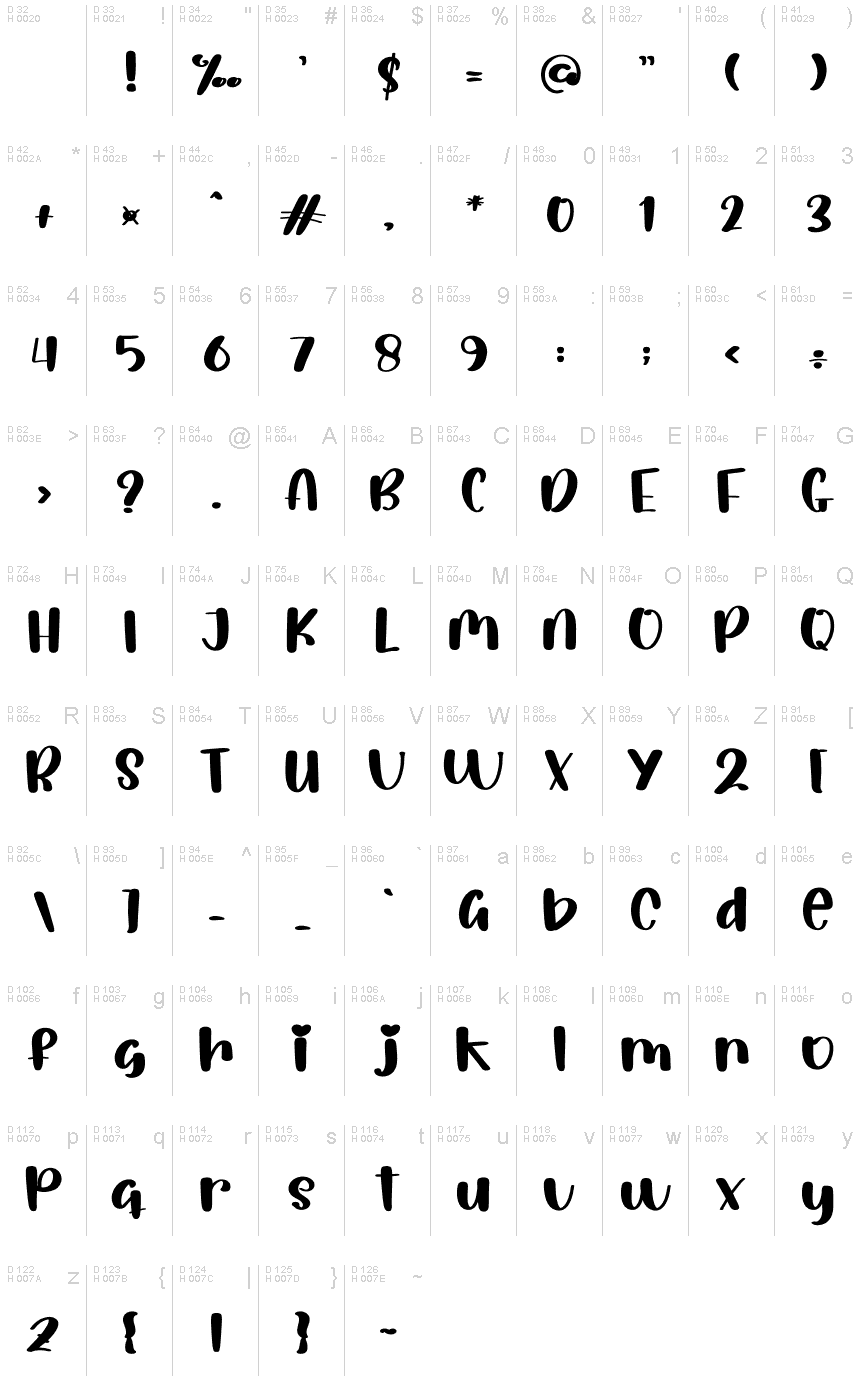
Christmas Special
Christmas Special, a whimsical creation by Intermedia Studio, bursts onto the scene with an extra-bold charisma that's impossible to ignore. This display font exudes a cartoon style that’s brimming with cheer and playfulness, making it the perfect choice for projects that aim to spread joy and capture the heartwarming essence of the holiday season.
With its exaggerated forms and bubbly contours, Christmas Special promises to infuse a dash of merriment into any creative endeavor. Whether it's festive greeting cards, eye-catching holiday advertisements, or spirited event invitations, this font stands out with a festive flair that can elevate your designs and resonate warmly with audiences.
The extra-bold weight of Christmas Special ensures that your message is delivered with conviction, offering an aesthetic appeal that is both inviting and impactful. Its suitability for bold headlines and expressive statements makes it not just a font but an essential tool for designers looking to make a memorable impression during the most wonderful time of the year.